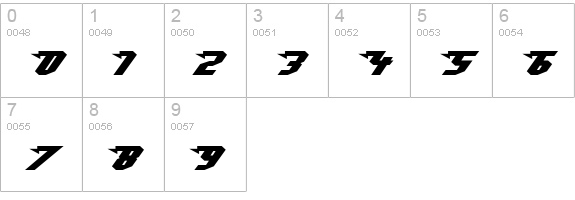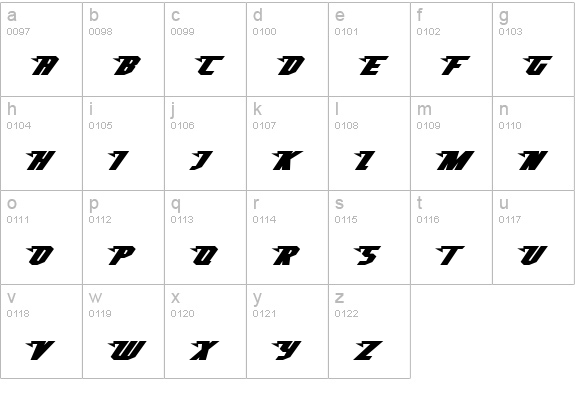
SuperHeterodyne Font Details
SuperHeterodyne font is a modern typeface that exudes sophistication and elegance. Its sleek lines and stylish curves make it a versatile choice for a wide range of design projects. The font is available in multiple weights and styles, allowing for endless creative possibilities. What sets SuperHeterodyne font apart is that it is completely free to download. You can easily access this stunning font at FontsMarket.com, where you can enhance your designs with its unique charm and appeal. Whether you are working on branding, advertising, or any other creative project, SuperHeterodyne font is sure to make a lasting impression. Download it today and elevate your designs to the next level.